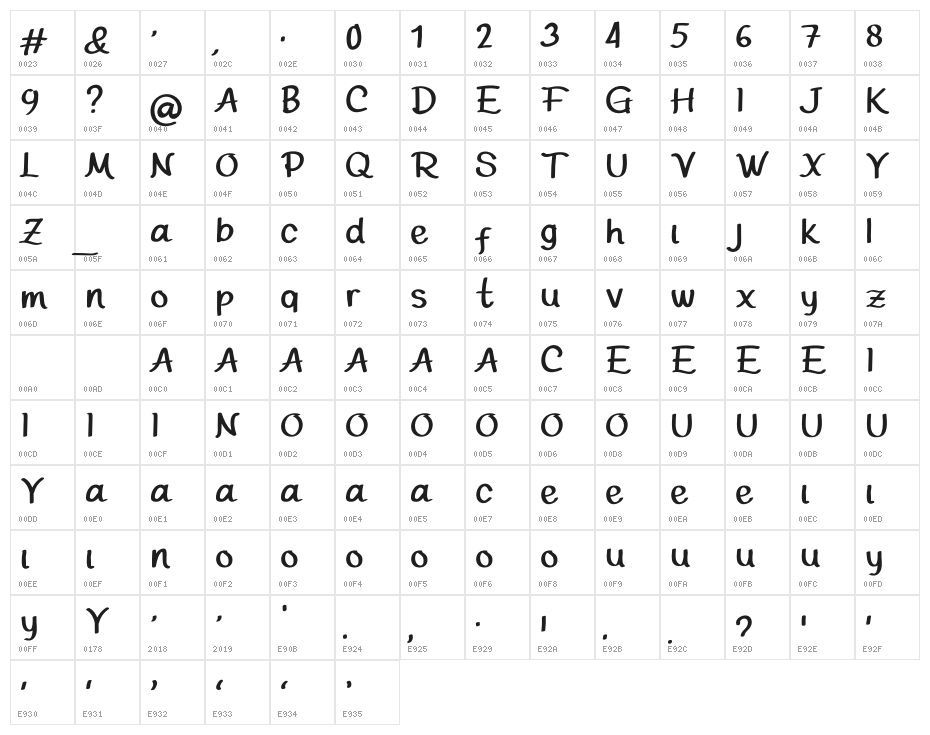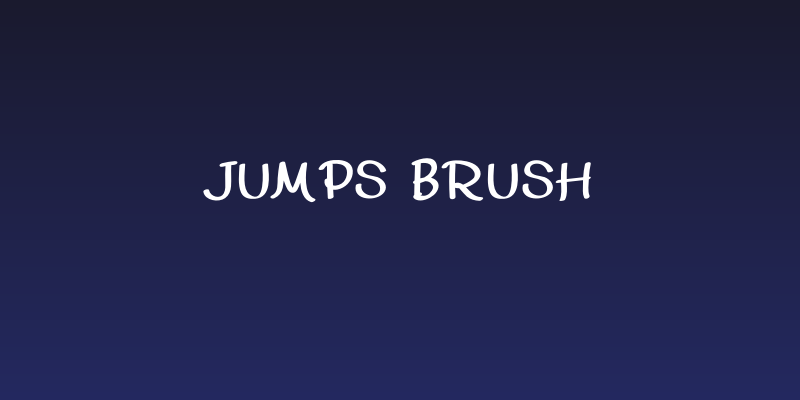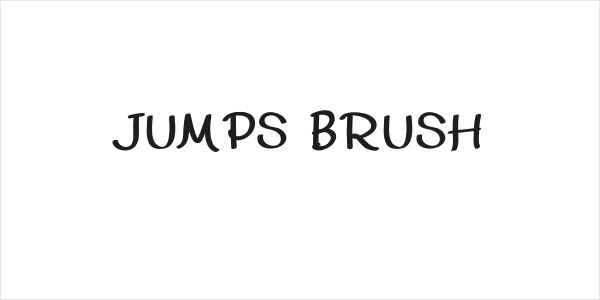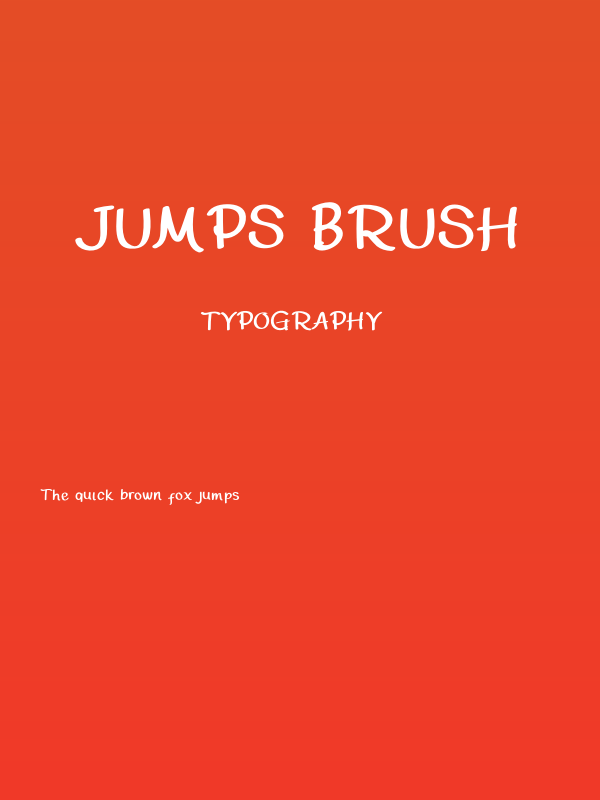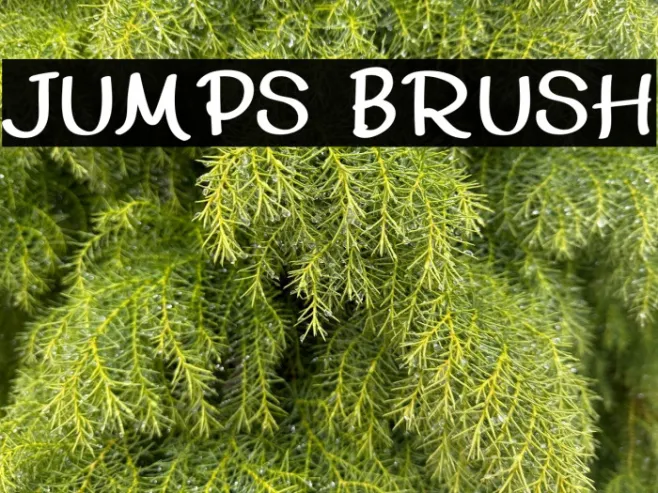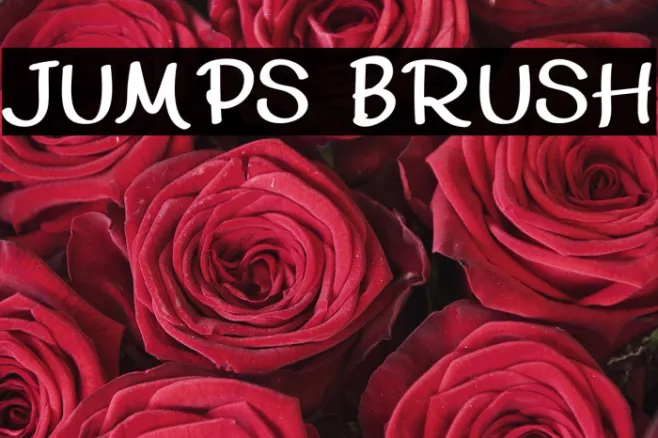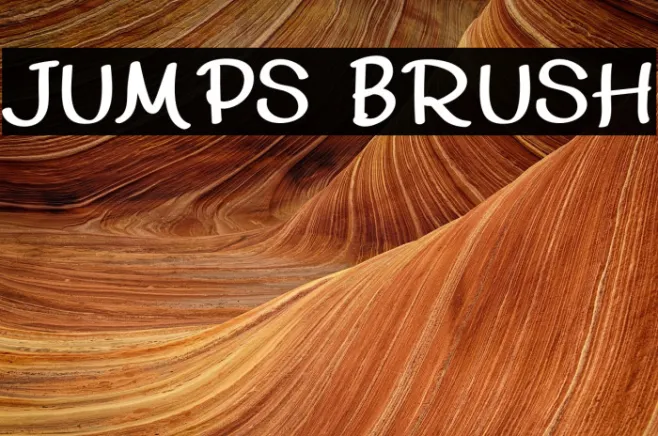
JUMPS BRUSH Font
JUMPS BRUSH Description
This font features a playful and dynamic brush script style, characterized by its fluid and organic strokes. The letters are slightly slanted, giving them a casual and informal appearance. The uppercase letters are bold and prominent, while the lowercase letters maintain a consistent flow with rounded edges. The numerals are clear and legible, matching the overall style of the alphabet. Special characters are included, maintaining the same brush-like quality. This font is ideal for projects that require a personal touch or a creative flair.
| Proposed Projects | Ideal for greeting cards, invitations, posters, and branding materials that require a personal and artistic touch. |